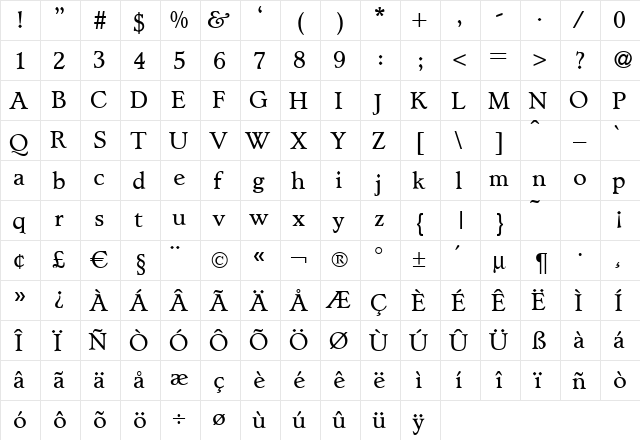
L890-Roman Bold
Bold · SoftMaker Software GmbH SoftMaker Software GmbH ·
DesignerSoftMaker Software GmbH
Design Context for L890-Roman Typeface
L890-Roman is a composed and adaptable typeface that performs quietly and consistently across a wide range of design contexts. Its bold stroke weight gives it real presence on the page.